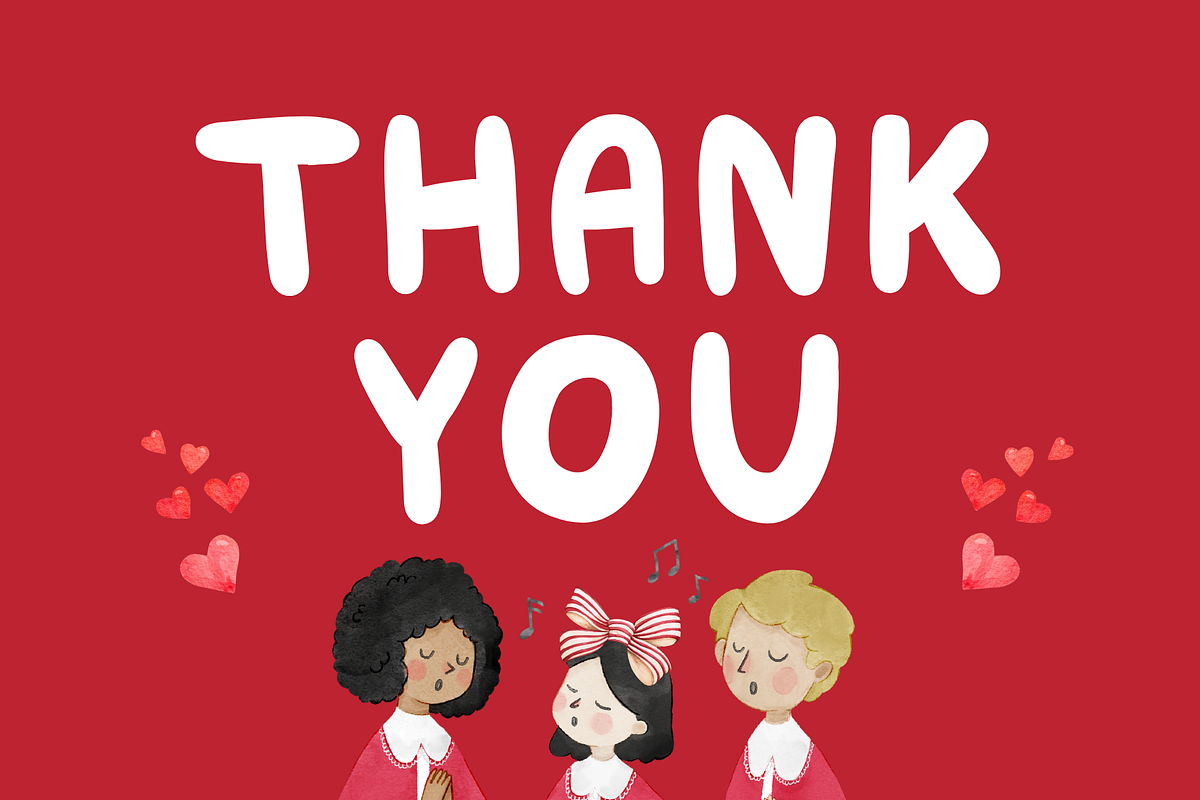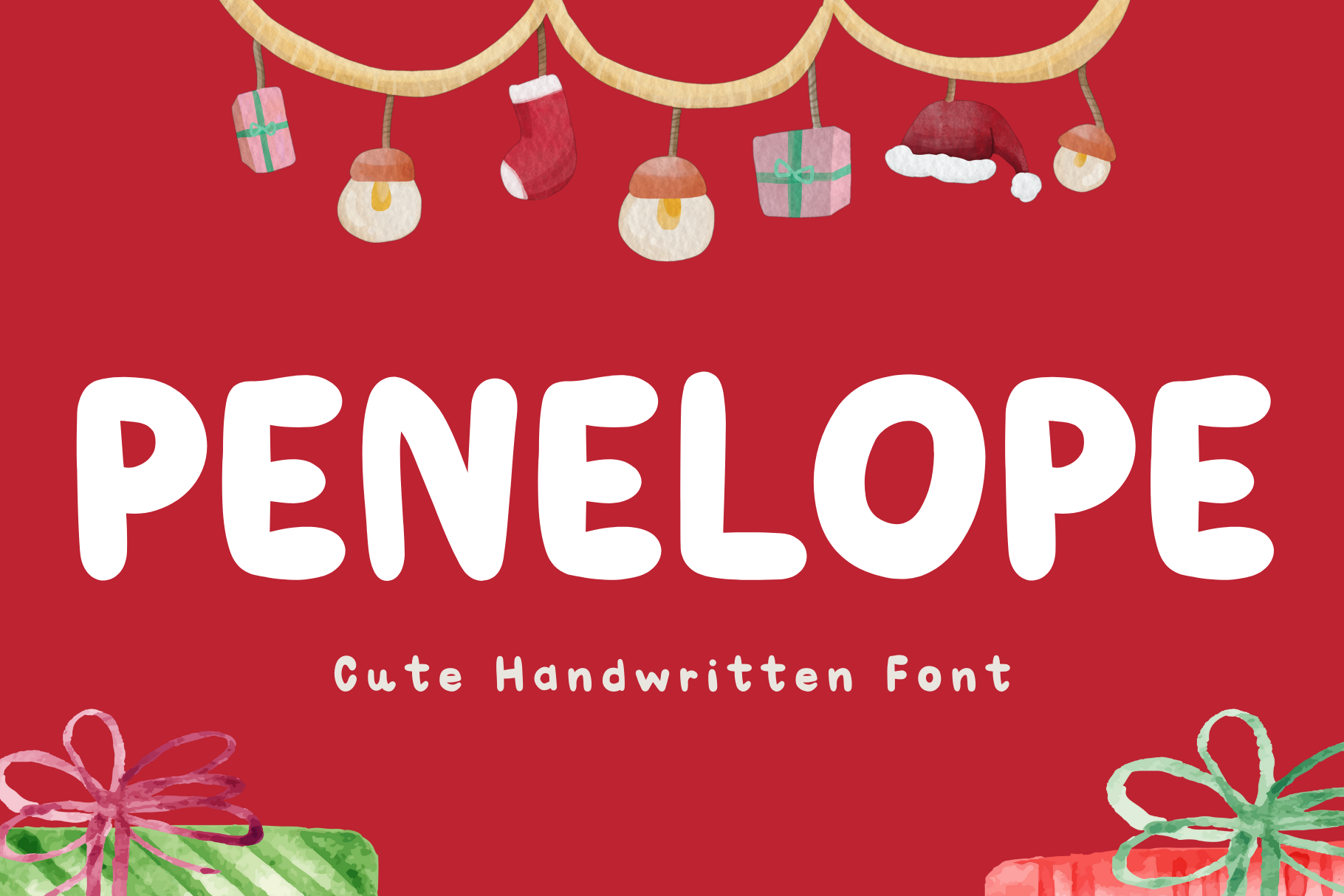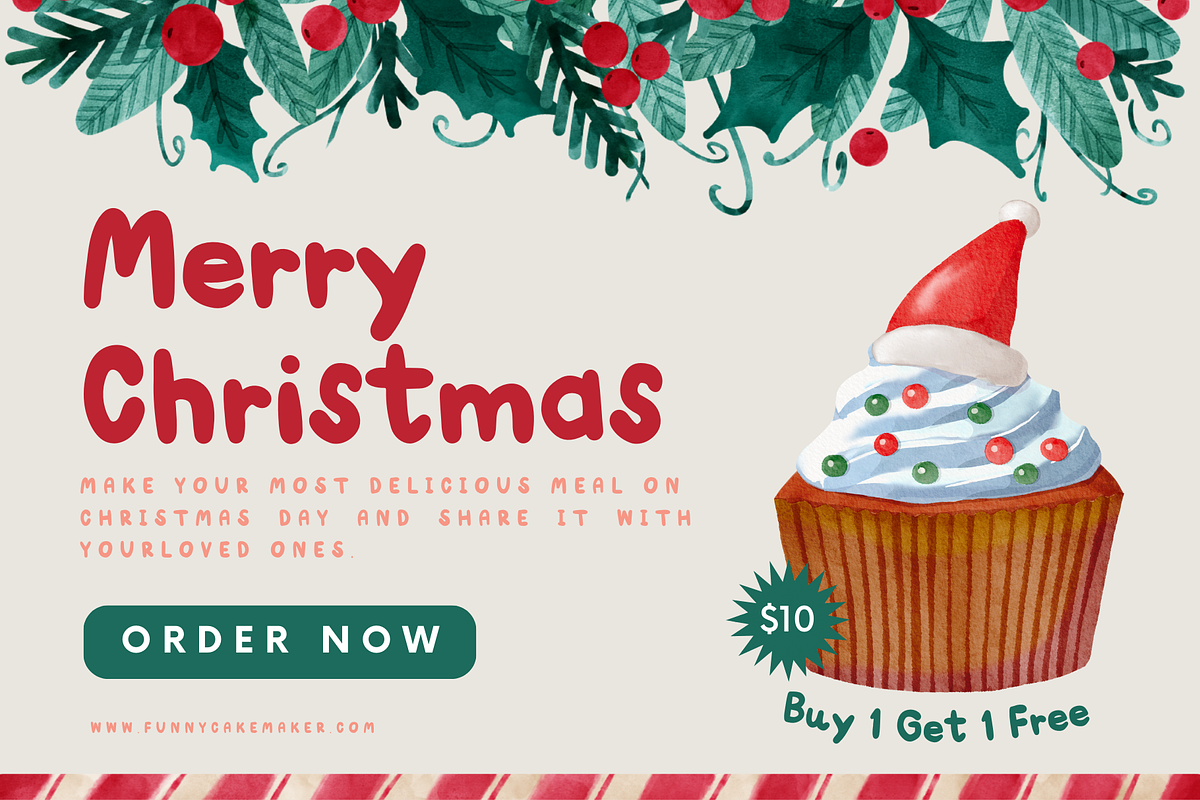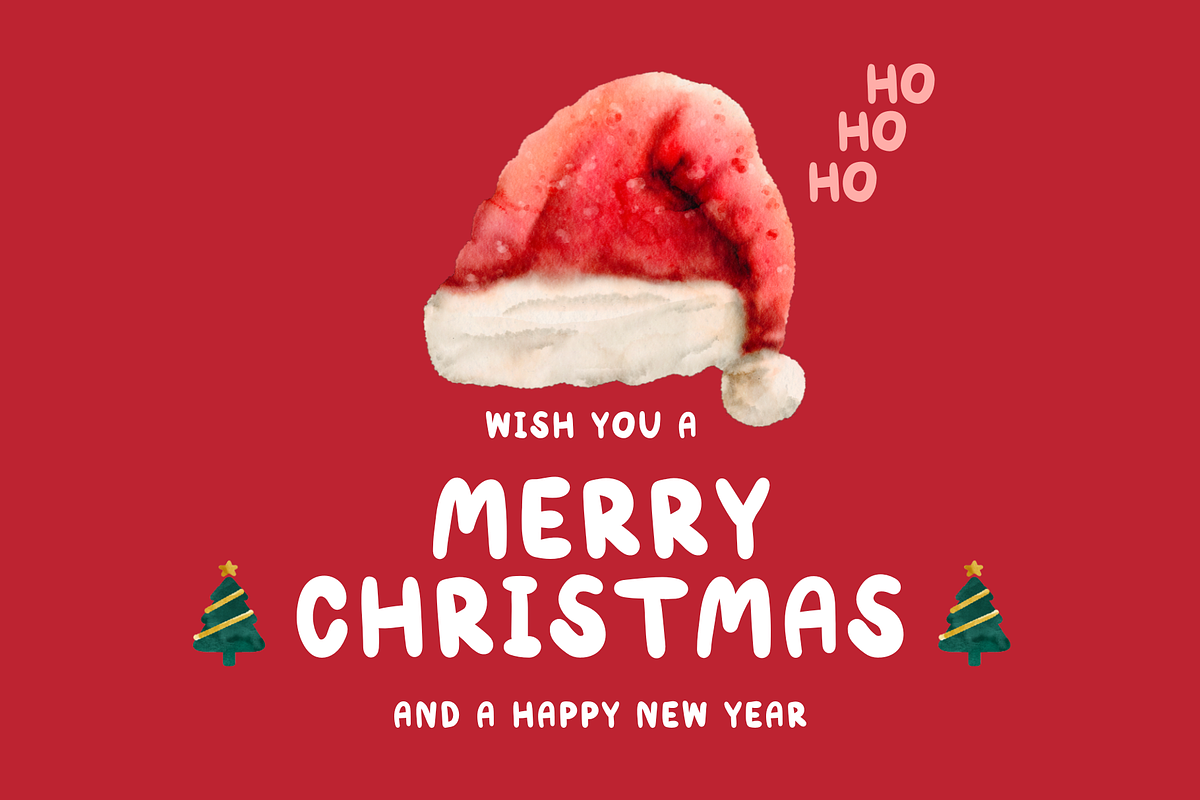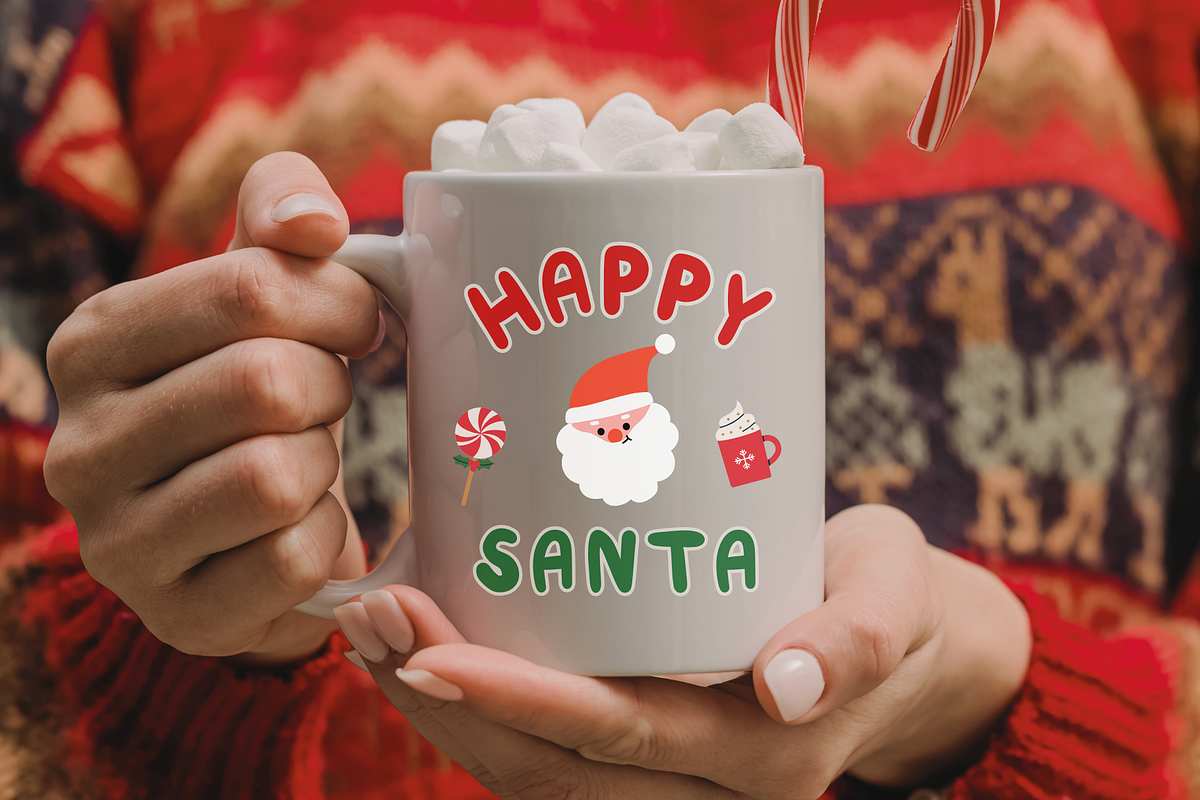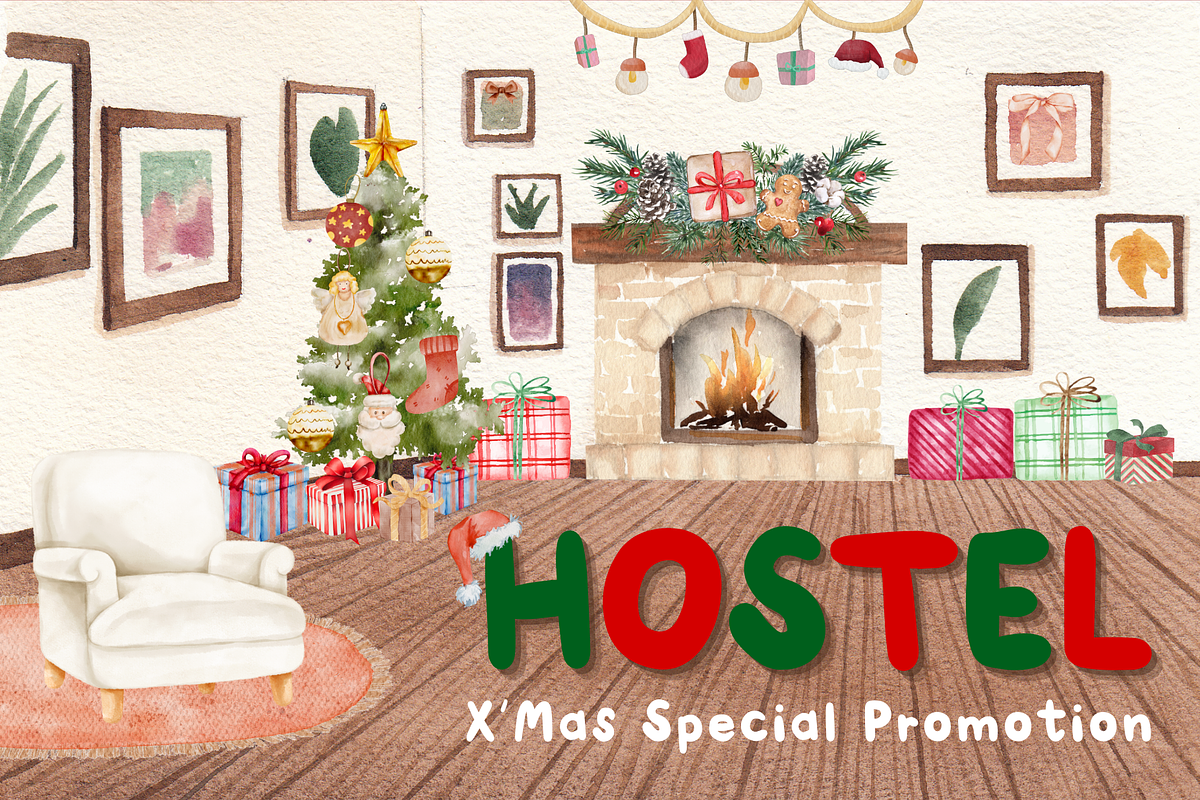
Penelope Cute Handwriting Font
Penelope Cute Christmas Font exudes a warm, handwritten charm that evokes the cozy feeling of writing a letter to Santa or decorating cookies with loved ones. Its delightful irregularities and artistic flair make it perfect for adding a personal touch to your Christmas creations.